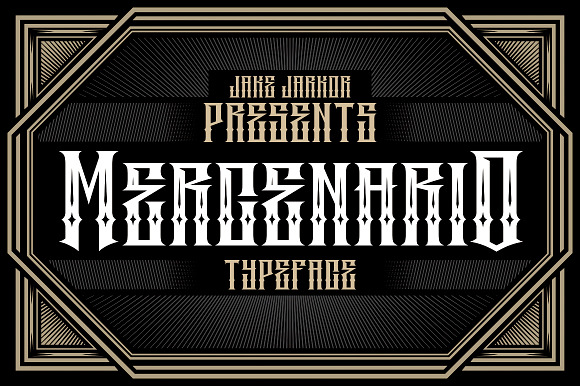
MERCENARIO Font
This powerful typeface is perfect for gaming logos, action movie titles, military branding, sports team graphics, weapon designs, tactical gear packaging, adventure magazines, combat simulations, and high-impact advertising campaigns.
What makes this font exciting is its aggressive military-inspired aesthetic combined with exceptional readability, offering designers a commanding typeface that delivers intense visual impact while maintaining professional precision and tactical sophistication.
The MERCENARIO font family includes regular, bold, stencil, distressed, and armored variations, providing complete arsenal options for creating dynamic combat-themed designs.
Whether you're developing intense gaming experiences or crafting bold brand identities, MERCENARIO Font Free Download brings unmatched strength and authority to every application. This formidable typeface combines military precision with modern design technology, creating letterforms that command attention and respect. The font's angular construction and strategic detailing make it ideal for brands requiring immediate visual dominance.
MERCENARIO Font features razor-sharp edges and tactical styling that conveys power and determination. Each character has been engineered for maximum impact, with carefully calculated proportions that ensure legibility even in high-stress visual environments. The font's militant aesthetic creates instant associations with strength, strategy, and unwavering resolve.
Professional designers choose MERCENARIO Font for projects demanding authoritative presence and combat-ready aesthetics. Its aggressive qualities work exceptionally well for defense contractors, security services, and competitive sports organizations. The font's tactical styling creates immediate credibility in industries where strength and reliability are paramount concerns.
The complete MERCENARIO Font package offers extensive character sets with specialized military symbols and tactical ornaments. Advanced OpenType features include contextual alternates that enhance the combat aesthetic while maintaining functional typography standards. This comprehensive military-grade toolkit ensures designers have everything needed to create commanding visual communications that project absolute authority and tactical superiority.